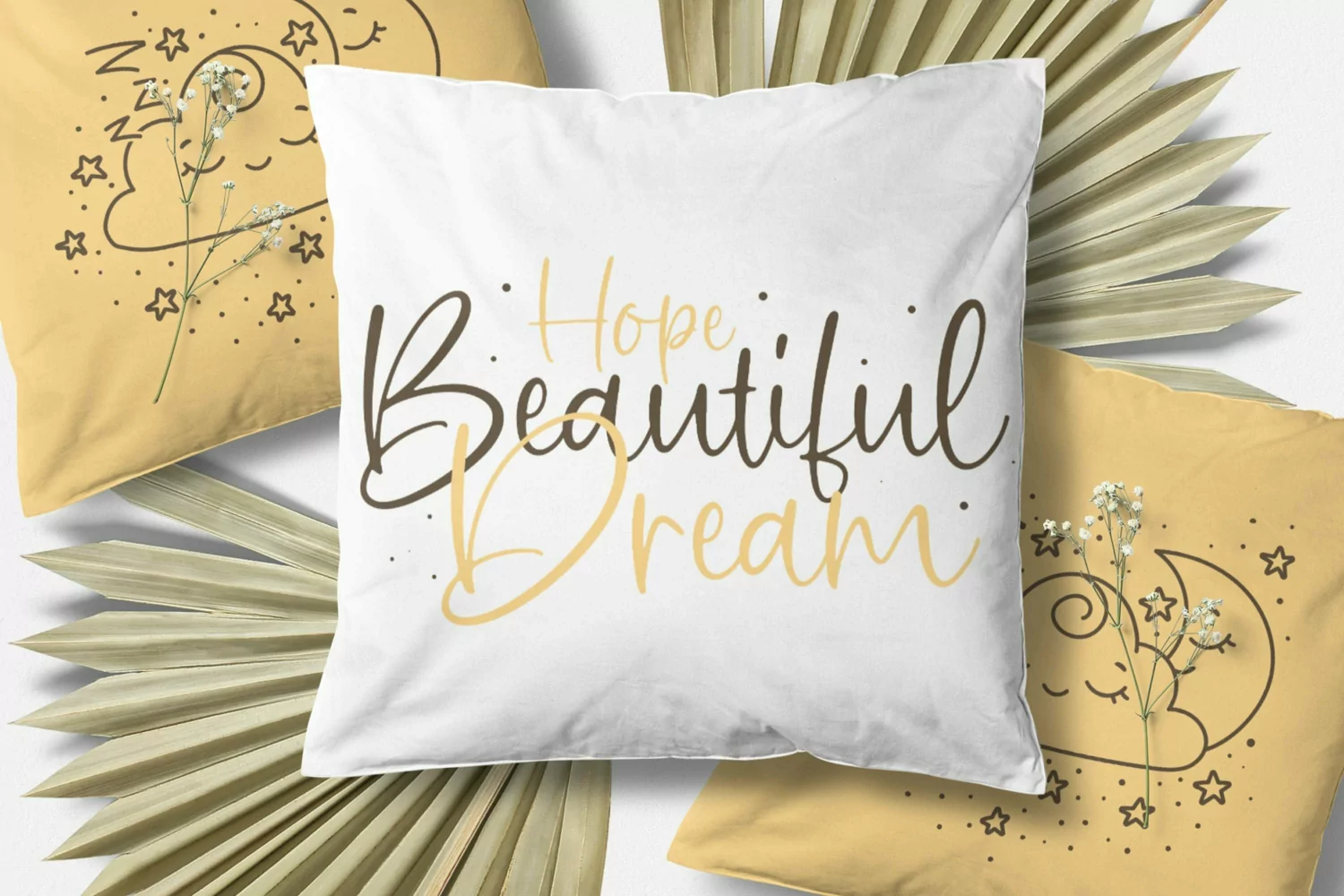
Web Font suitable for logotype, brand, packaging, quotes, music poster, t-shirt, cover book and more custom design. The features uppercase, lowercase, numeral, punctuation & symbol, multilingual support.
BunniesWoodyRegular